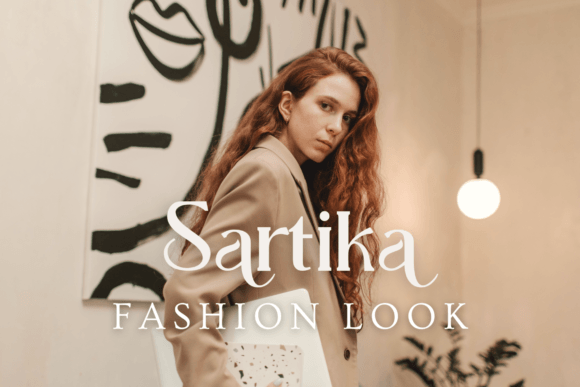
Sartika Font: Adding a Playful Twist to Your Designs
In the world of typography, fonts play a crucial role in conveying the tone and personality of a brand or design. With the numerous font options available, it can be challenging to find the perfect one that stands out from the crowd. However, if you’re looking for a font that adds a playful twist to your designs, look no further than Sartika Font. In this article, we’ll explore the unique features of Sartika Font and how it can elevate your designs to the next level.
What is Sartika Font?
Sartika Font is a modern display font that is designed to add a touch of elegance and playfulness to any design. With its whimsical letterforms and unique charm, it’s perfect for creating eye-catching headlines, vibrant posters, and playful branding projects. The font’s designer aimed to create a typeface that would infuse designs with joy and personality, and Sartika Font certainly delivers.
Key Features of Sartika Font
Sartika Font boasts several key features that make it an excellent choice for designers. Some of its notable features include:
- Whimsical letterforms: Sartika Font features unique and playful letterforms that add a touch of personality to any design.
- Elegant and modern: The font’s modern design ensures that it looks sleek and sophisticated, making it perfect for a wide range of design projects.
- Playful twist: Sartika Font’s playful twist makes it ideal for designs that require a bit of fun and personality.
- Highly versatile: The font is suitable for various design projects, including headlines, posters, branding, and more.
Uses of Sartika Font
Sartika Font is an incredibly versatile font that can be used in a wide range of design projects. Here are some of the most popular uses of Sartika Font:
- Headlines and titles: Sartika Font is perfect for creating eye-catching headlines and titles that grab attention.
- Posters and flyers: The font’s playful and elegant design makes it ideal for creating vibrant posters and flyers.
- Branding and logos: Sartika Font can be used to create unique and memorable branding and logos that reflect a brand’s personality.
- Social media graphics: The font is suitable for creating engaging social media graphics that stand out from the crowd.
Benefits of Using Sartika Font
Using Sartika Font in your designs comes with several benefits. Some of the most significant advantages of using Sartika Font include:
- Unique and memorable: Sartika Font helps create designs that are unique and memorable, setting you apart from the competition.
- Playful and engaging: The font’s playful design ensures that your designs are engaging and fun, making them more effective at capturing attention.
- Highly versatile: Sartika Font can be used in a wide range of design projects, making it a valuable addition to your font library.
- Elegant and sophisticated: The font’s elegant design ensures that your designs look sleek and sophisticated, making them perfect for professional applications.
Tips for Using Sartika Font
To get the most out of Sartika Font, here are some tips to keep in mind:
- Use it sparingly: Sartika Font is a bold and playful font, so use it sparingly to avoid overwhelming your designs.
- Experiment with colors: The font looks great in a variety of colors, so experiment with different color schemes to find the one that works best for your design.
- Pair it with other fonts: Sartika Font can be paired with other fonts to create a unique and visually appealing design.
- Pay attention to spacing: Make sure to pay attention to spacing and kerning to ensure that your text is easy to read.
Sartika Font is a fun and elegant modern display font that adds a playful twist to any design. With its whimsical letterforms and unique charm, it’s perfect for eye-catching headlines, vibrant posters, and playful branding projects. Infuse your creations with joy and personality with Sartika Font. Whether you’re a designer or a DIY enthusiast, Sartika Font is an excellent choice for anyone looking to add a touch of personality to their designs.
- What is Sartika Font? Sartika Font is a modern display font designed to add a playful twist to any design.